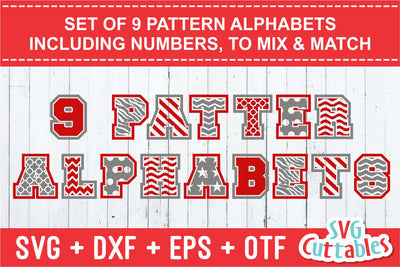
Pattern fonts set of 9
Set of 9 different patterned Alphabets / Fonts
You will receive 9 different 2 colored patterned vector alphabets/ numbers that can be mixed to create different patterned words.
And 9 .otf (typable) one color patterned fonts also with numbers.